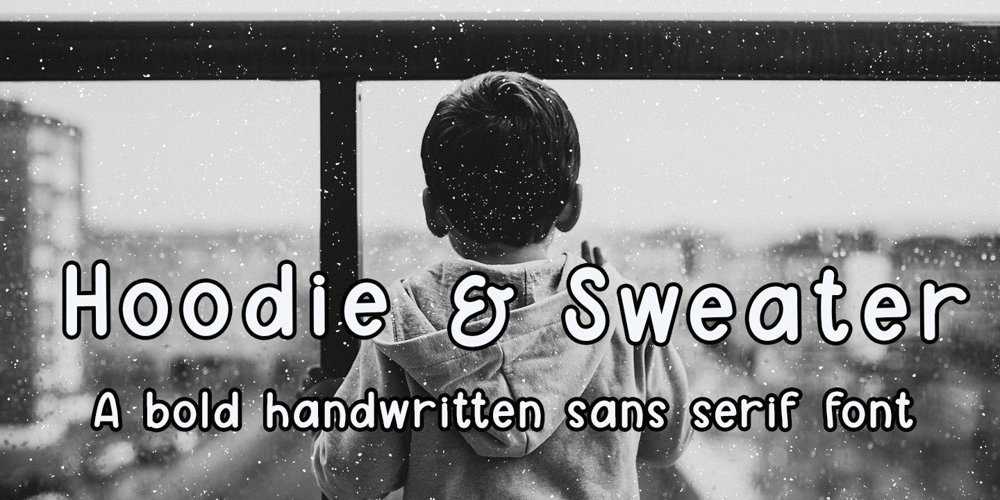
Hoodie & Sweater
Hoodie & Sweater font
Hoodie & Sweater Font Family was designed by Ira Natasha and published by Ira Natasha. Hoodie & Sweater contains 1 styles and family package options. Hoodie & Sweater is a bold handwritten sans serif font. A new fresh handmade font with smooth edges. This font is support multi language. Available in OTF file. This font will perfect for many different project ex: quotes, logo, blog header, poster, branding, fashion, apparel, letter, invitation, stationery, etc….